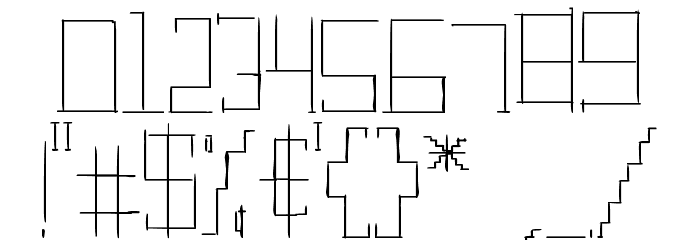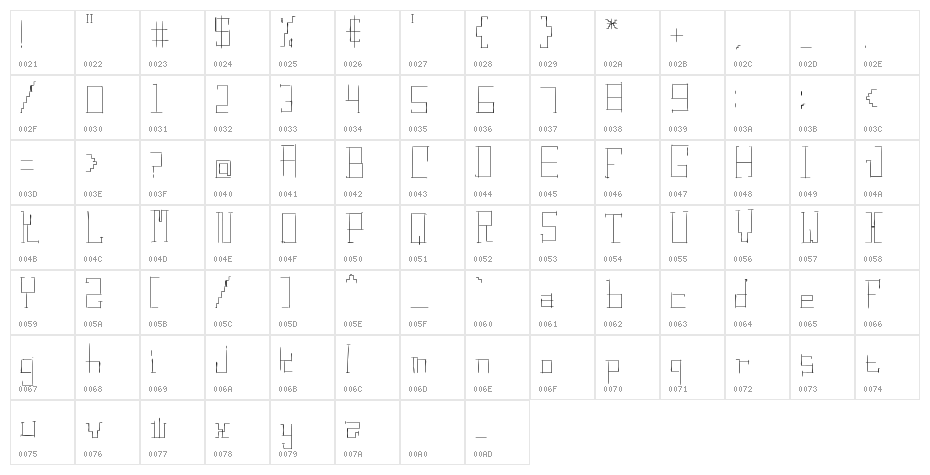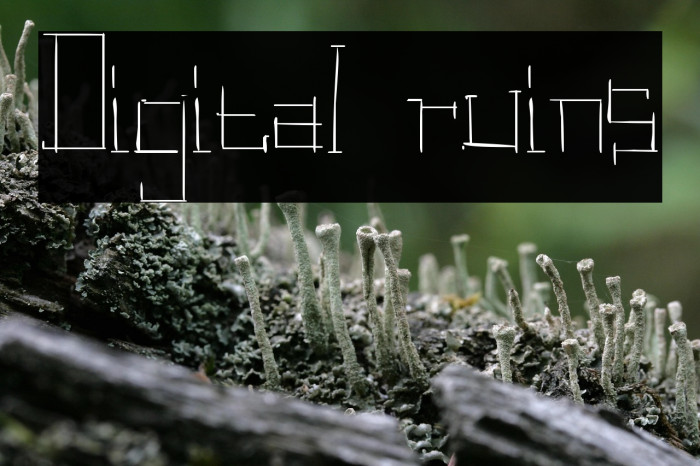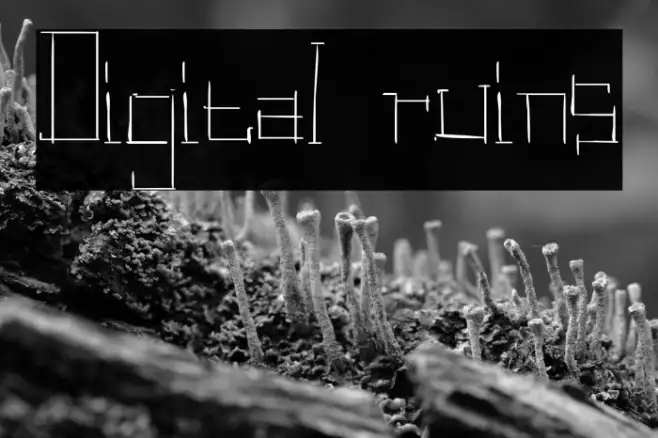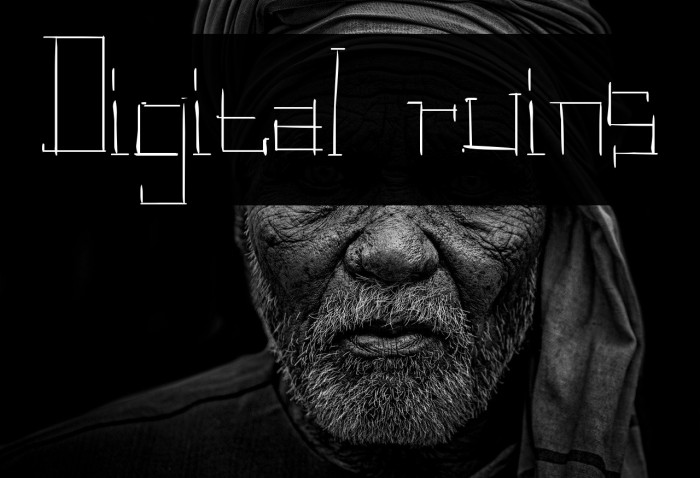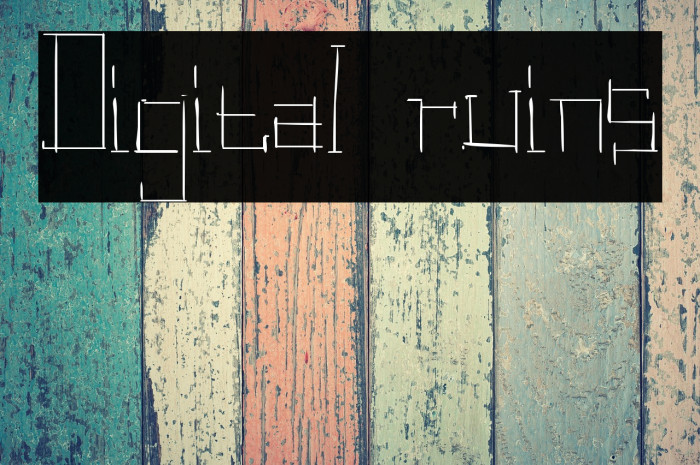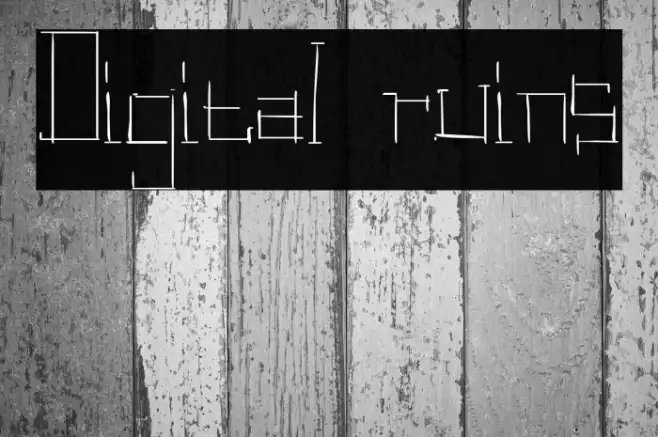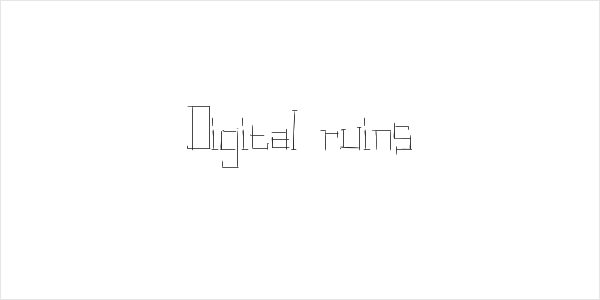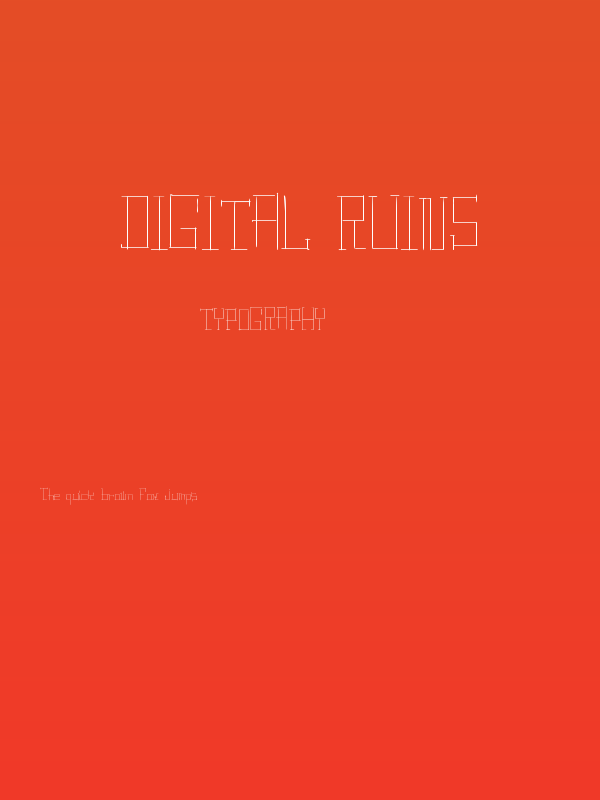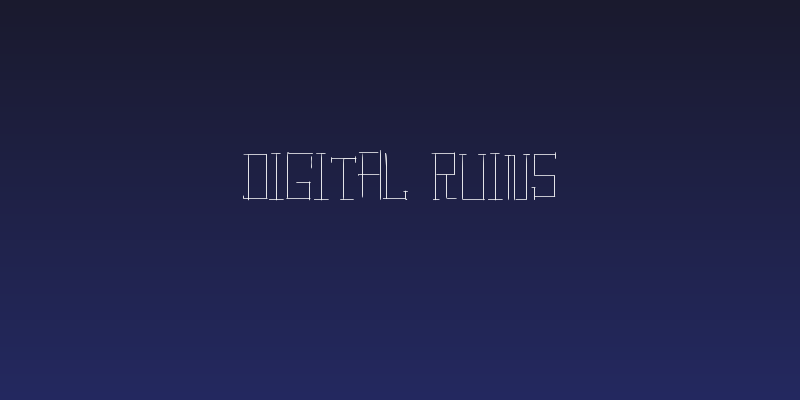
This font features a unique, digital-inspired design with a geometric and angular structure. Each character is composed of straight lines and right angles, giving it a futuristic and mechanical appearance. The uppercase and lowercase letters maintain a consistent height, while the numerals and special characters follow the same angular theme. The overall look is reminiscent of digital displays or architectural blueprints, with a minimalist and modern aesthetic. The font's distinct style makes it stand out, suitable for projects that require a tech-savvy or avant-garde touch.
| Use Case | Logos, Headlines, Digital displays |
| Proposed Projects | Ideal for tech branding, digital art, video game interfaces, and futuristic-themed posters. |